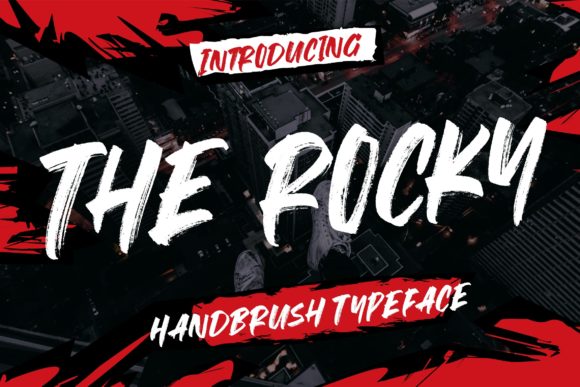
In a world clamoring for originality, The Rocky Font emerges as a triumphant symphony of creativity, an ode to individuality, and a testament to the boundless possibilities of artistic expression. This awe-inspiring display font, crafted with meticulous precision by the visionary artists at CreatypeStudio, is not merely a font; it's a portal to a realm where words ignite imaginations and designs dance with unbridled passion.
The Rocky Font, with its captivating hand-brush strokes and boldly textured edges, embodies the spirit of adventure, inviting you to embark on an artistic odyssey where boundaries dissolve, and dreams take flight. Its irresistibly versatile style transforms ordinary words into captivating narratives, breathing life into wedding invitations, stationery art, social media posts, and countless other creative endeavors.
Unleash the Untamed Spirit of Creativity:
Immerse yourself in the raw, untamed energy of The Rocky Font, a font that mirrors the untamed spirit of nature itself. Let your creativity run wild as you craft designs that echo the rugged beauty of mountain peaks, the gentle caress of ocean waves, or the untamed wilderness. With The Rocky Font, your imagination becomes the compass guiding you through an artistic journey like no other.
Cinematic Aesthetics at Your Fingertips:
Step into the spotlight and command attention with The Rocky Font, a font that embodies cinematic grandeur. Its bold strokes and striking textures evoke the captivating ambiance of silver screen masterpieces, transporting your designs to the realm of epic storytelling. Create posters that ignite imaginations, movie titles that linger in memory, and marketing campaigns that resonate with audiences like a symphony of visual delight.
A Symphony of Versatility:
The Rocky Font is a virtuoso performer, effortlessly adapting to a myriad of creative endeavors. Whether you're designing logos that demand attention, crafting product labels that entice customers, or creating social media graphics that ignite conversations, The Rocky Font rises to the occasion with unwavering grace and unwavering allure. Its versatility knows no bounds, making it the perfect choice for designers seeking a font that can seamlessly transition from one project to the next.
Unleash the Power of PUA Encoding:
With The Rocky Font, creative possibilities are limitless, thanks to its PUA encoding. This remarkable feature grants you effortless access to a treasure trove of glyphs and swashes, empowering you to unleash typographic artistry in all its glory. Create intricate designs, incorporate stunning accents, and explore the depths of your creativity without any technical limitations.
Elevate Your Designs to New Heights:
Ascend to the pinnacle of design excellence with The Rocky Font as your steadfast companion. This font's inherent charm and undeniable charisma transform ordinary text into extraordinary statements. Elevate your projects to new heights of sophistication and watch as they captivate audiences with their sheer brilliance. The Rocky Font is the key to unlocking your creative potential and leaving an indelible mark on the world of design.